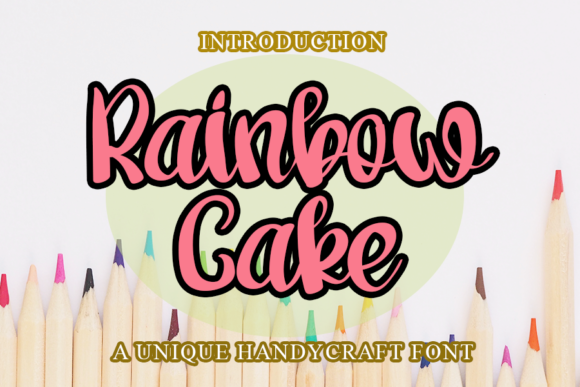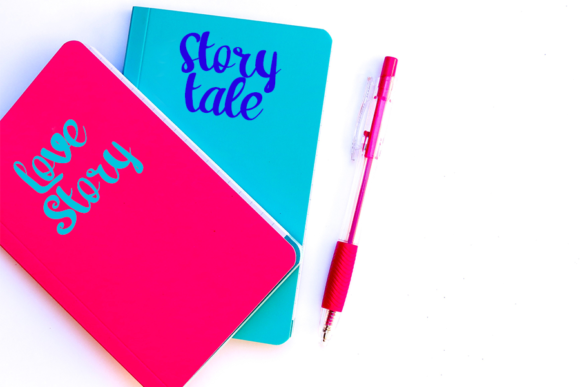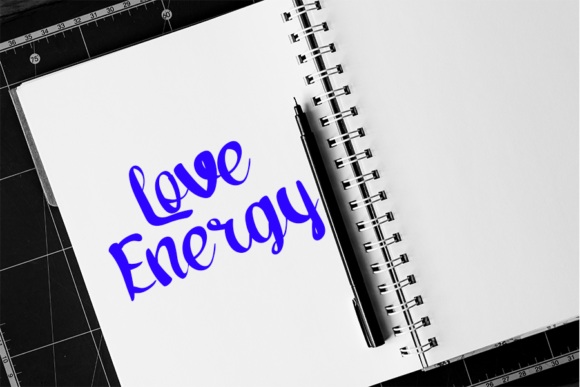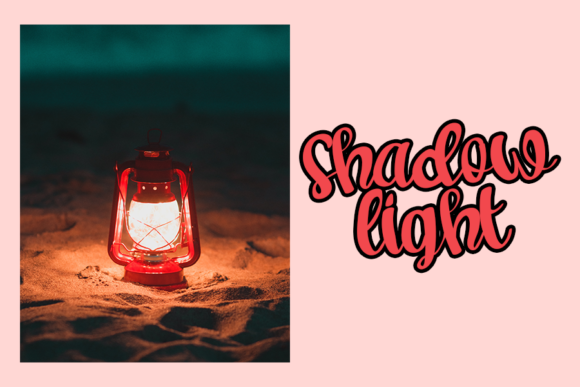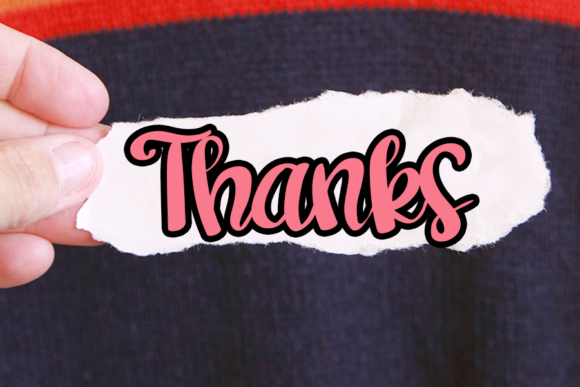
About Rainbow Cake Font
Rainbow Cake is a unique and elegant handwritten font. It looks beautiful on a variety of designs requiring a personalized style, such as wedding invitations, thank you cards, weddings, greeting cards, logos and so on.